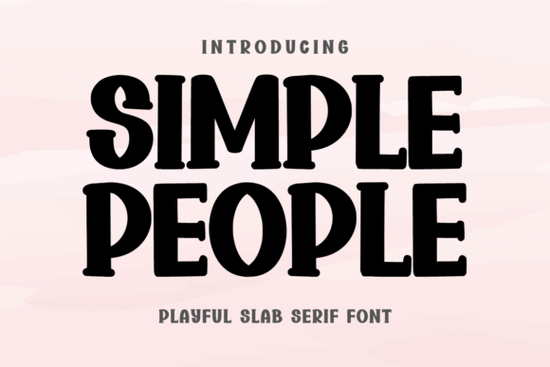
If you're looking for a friendly, bold font that stands out without feeling stiff or overly formal, the Simple People Font is worth your attention. It’s a slab serif with wide, chunky letterforms and playful serifs designed to feel approachable but still hold its own in print and digital layouts. Whether you’re designing t-shirt graphics, product labels, social media banners, or even greeting cards, this typeface brings warmth and clarity at larger sizes.
What makes Simple People different from other slab serifs?
Most slab serifs lean either technical (like Rockwell) or retro (like Courier New), but Simple People sits comfortably in the middle chunky enough to grab attention, yet rounded and open enough to feel inviting. Its generous x-height and consistent stroke weight help it stay legible even at smaller sizes on packaging or tags. Unlike condensed or ultra-thin alternatives, it doesn’t sacrifice readability for style.
You’ll notice the subtle quirks too: slightly flared serifs, soft corners on letters like “a” and “e”, and balanced spacing that avoids crowding. These aren’t just aesthetic choices they make the font easier to work with when layering text over photos or applying quick effects in Canva, Photoshop, or Cricut Design Space.
Where does it work best?
This font shines where personality matters more than precision. Think of projects where you want people to pause, smile, and remember not just scan. Here are some real-world uses:
- T-shirt designs especially for casual brands, kids’ apparel, or boutique shops wanting a hand-drawn-but-polished look
- Product labels and jars the thickness holds up well on matte paper or kraft stickers
- Digital banners and Instagram story text no need to add outlines or shadows to make it pop
- Print-on-demand mugs, tote bags, and wall art it scales cleanly from 24pt to 200pt
- Small business signage, like café chalkboard menus or local market stall posters
It’s not ideal for long paragraphs or body text this is a display font, not a workhorse. But that’s by design. You wouldn’t use a hammer to sew, and you don’t need every font to do everything.
How does it pair with other fonts?
Simple People works well with clean sans-serifs (like Montserrat or Open Sans) for contrast, or with light script fonts for balance say, pairing it with a delicate handwritten style for wedding invites or baby shower prints. Avoid pairing it with other heavy slab serifs or overly decorative fonts; the goal is harmony, not competition.
Is it beginner-friendly?
Yes if you’ve ever typed a headline in Canva or dragged text into Cricut Design Space, you’ll feel comfortable using Simple People right away. No steep learning curve. No need to adjust kerning manually for most common phrases. The uppercase “A”, “R”, and “G” have clear shapes that cut cleanly, which helps with vinyl weeding and laser-cut stencils.